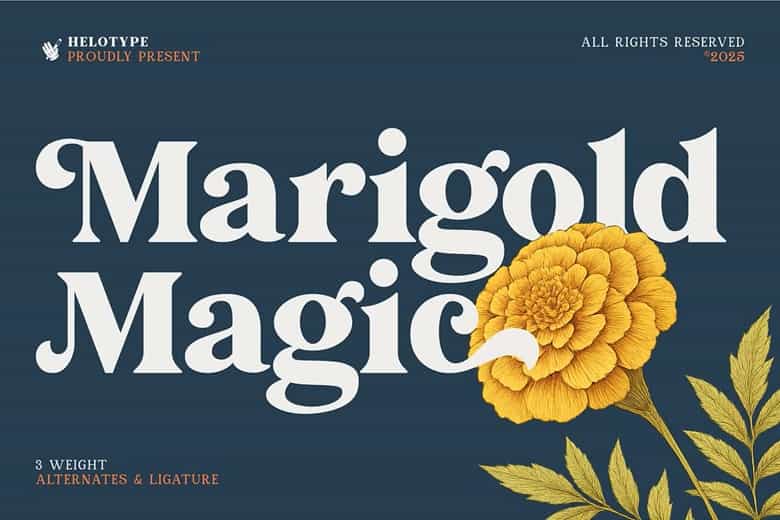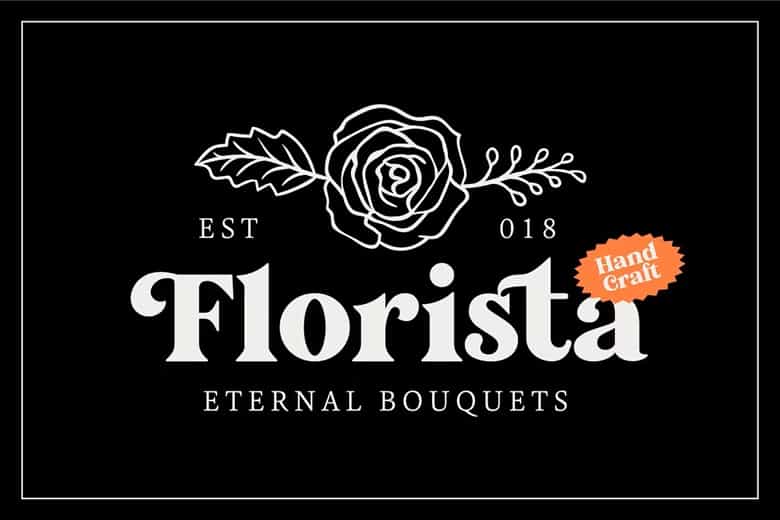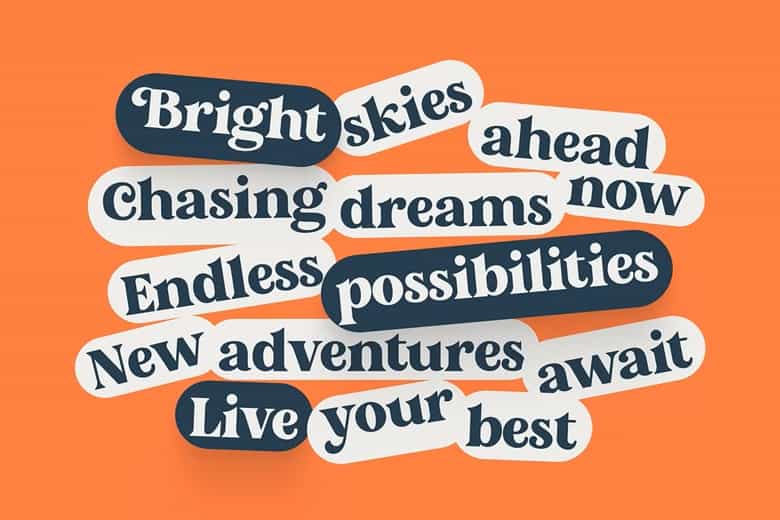
Marigold Magic is a new modern serif typeface that exudes charm and elegance. Marigold Magic comes in 3 weights, alternate characters, multilingual support and ligature options for imparting timeless elegance to the designs. Perfect for such projects as wedding invitations, old posters, and stylish logos, Marigold Magic is your way to bring your creative idea to life.